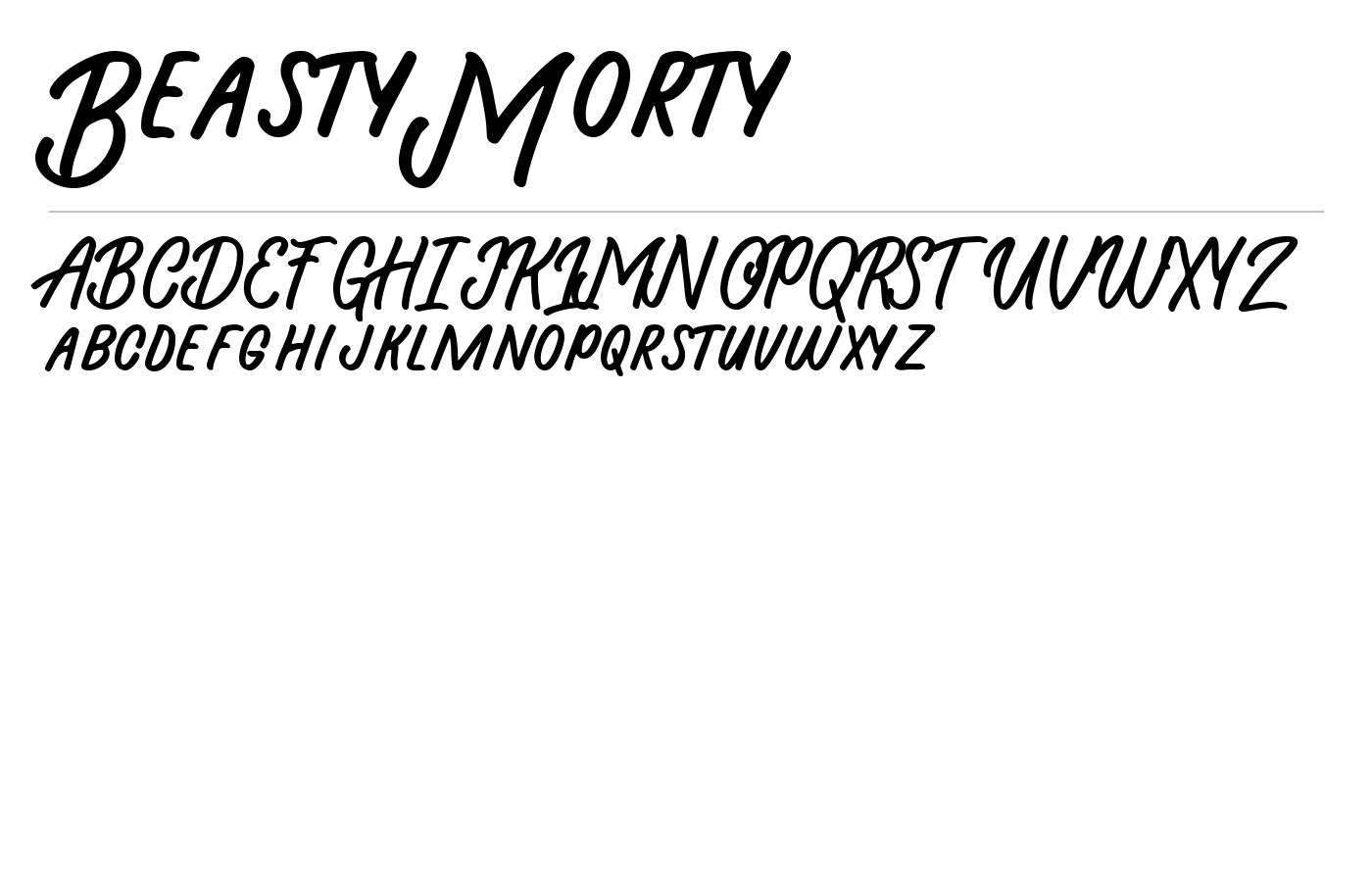
Beasty Morty is a lively, handwritten script font with a casual and energetic vibe, featuring smooth, medium-weight strokes and a slightly condensed width that adds focus without feeling cramped. Its distinct, flowing letterforms with high contrast and single-story characters give it a playful yet confident personality, ideal for creative branding, posters, and headlines that want to convey approachability and style. This font works well in dynamic, informal settings thanks to its unique charm and strong visual presence.
Beasty Morty Font
About Beasty Morty Font